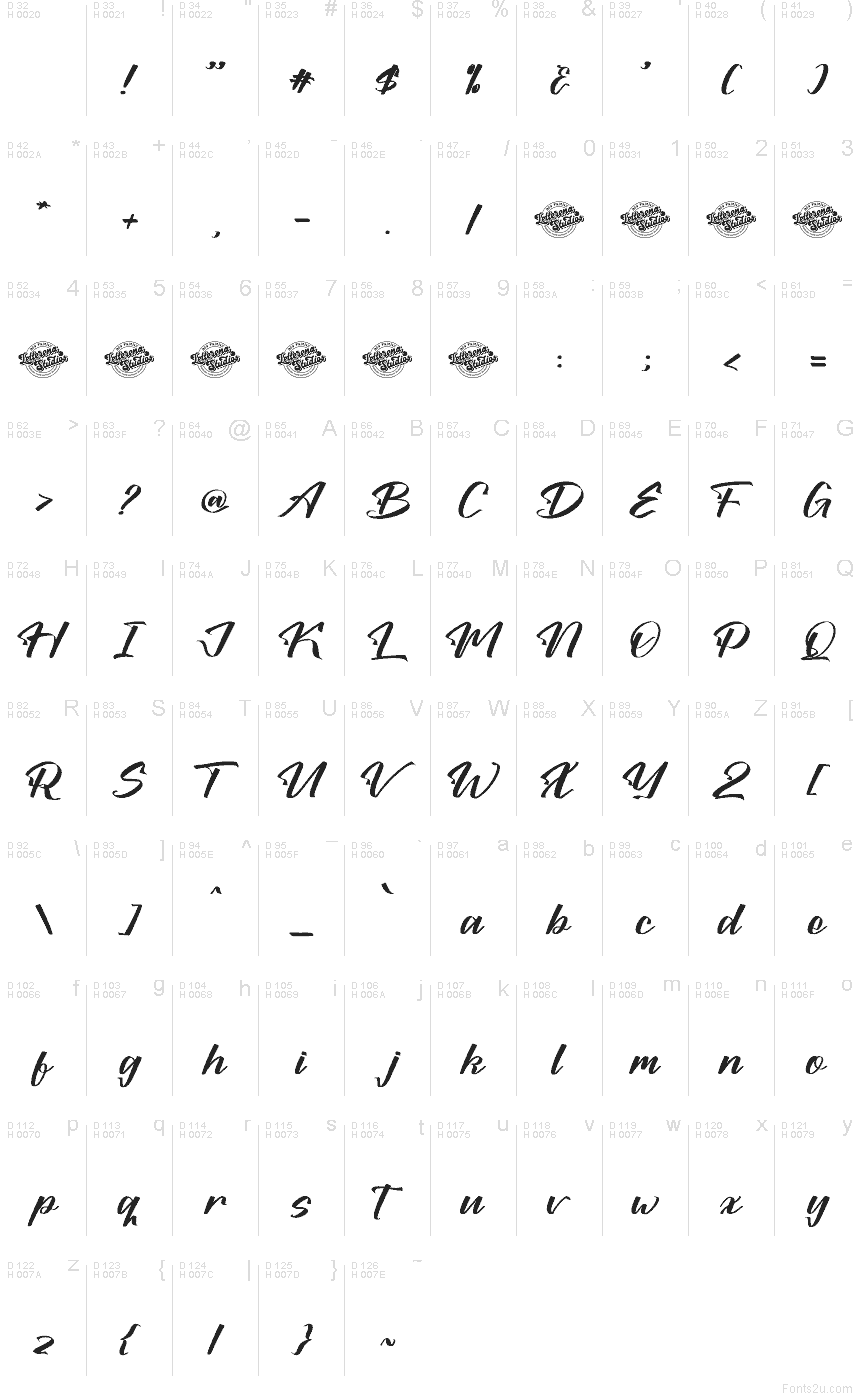
Amladen Bohiga DEMO VERSION
Amladen Bohiga font by Letterena Studios is a free calligraphy typeface that solves the “too fancy to read” script problem. Its smooth, inky strokes have a natural handwritten swing, but the letters stay clear and evenly spaced, so names, short quotes, and brand tags don’t dissolve into a tangle of loops. Gentle curves, a slight rightward slant, and sweeping ending strokes give it a romantic, polished feel without looking stiff or old-fashioned.
Using Amladen Bohiga, you can confidently set wedding invitations, logos, beauty branding, social media graphics, greeting cards, product packaging, and quote prints that need both elegance and legibility. This free font shines when you let it breathe in larger sizes, then pair it with a clean sans serif for supporting text to keep layouts balanced and easy to scan.